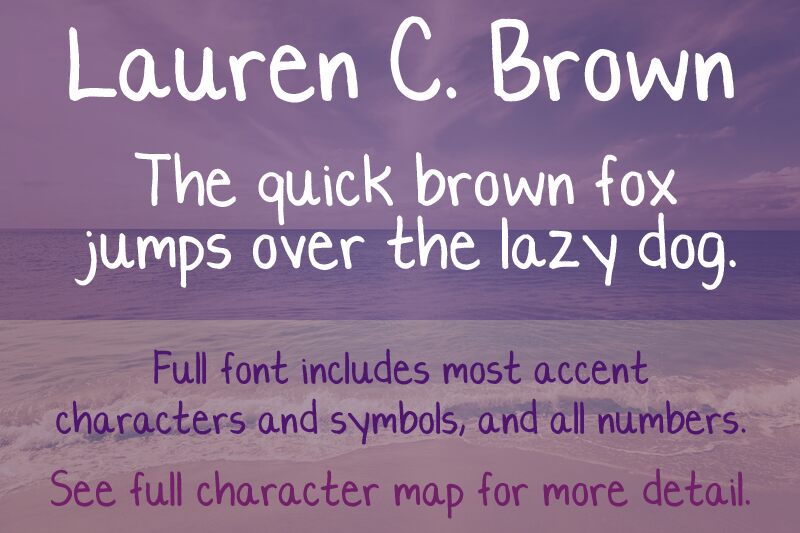
Lauren C. Brown is a captivating handwritten font crafted by acclaimed designer Quick Brown Fox Fonts. This font exudes a charming, personal touch, capturing the essence of casual yet refined penmanship. The organic strokes and natural flow of the letters convey a sense of warmth and authenticity, inviting the reader to engage with the text on a more intimate level.
The distinctive character of Lauren C. Brown makes it a versatile choice for a wide range of design applications, from editorial layouts and branding materials to stationery and event invitations. Its expressive nature lends itself particularly well to projects that aim to evoke a sense of handcrafted elegance, personal expression, or a heightened emotional connection with the audience.
Lauren C. Brown (Demo Version)